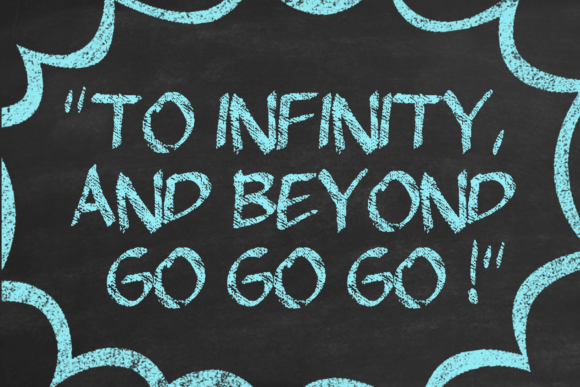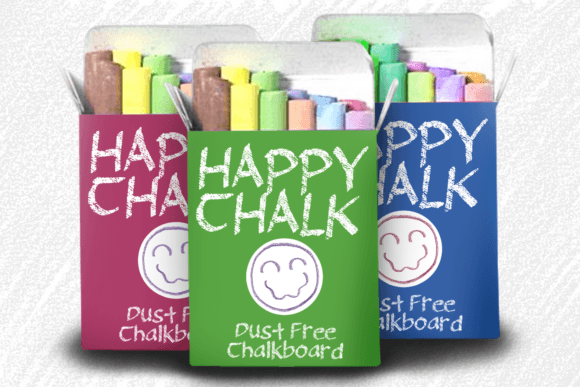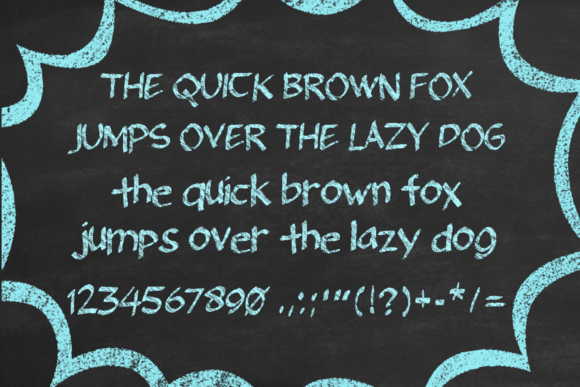
Introducing Action Pencil Font: The Ultimate Handwritten Font for Creative Designs
Are you a designer, crafter, or artist looking for a font that can add a personal touch to your creations? Look no further than Action Pencil Font, a natural and versatile handwritten font that’s perfect for a wide range of projects. In this article, we’ll explore the features and benefits of Action Pencil Font, and show you how to use it to create amazing designs that stand out.
The Versatility of Action Pencil Font
Action Pencil Font is a true workhorse, suitable for a vast array of applications. Whether you’re designing for print or digital media, this font can help you achieve a unique and casual look that’s sure to engage your audience. Here are some ideas for using Action Pencil Font:
- T-shirts and apparel: Add a personal touch to your clothing designs with Action Pencil Font’s friendly, approachable style.
- Comics and illustrations: Bring your characters to life with a font that’s reminiscent of hand-drawn comics and cartoons.
- Magazines and newspapers: Use Action Pencil Font to add a human touch to your editorial designs, making them more relatable and engaging.
- Social media posts: Stand out on social media with eye-catching graphics and typography that showcase your personality.
- Greeting cards and invitations: Create personalized and heartfelt cards that will make your loved ones feel special.
- Stickers and labels: Add a playful touch to your stickers and labels with Action Pencil Font’s fun and quirky style.
- Posters and flyers: Create bold and attention-grabbing posters and flyers that will get your message across.
- Kid’s book design: Bring your children’s book to life with a font that’s perfect for storytelling and illustration.
The Benefits of Action Pencil Font
So why choose Action Pencil Font over other fonts? Here are just a few benefits that make it an excellent choice for designers and crafters:
- Natural and friendly style: Action Pencil Font has a warm and approachable feel that’s perfect for creating designs that resonate with your audience.
- Highly versatile: Use Action Pencil Font for a wide range of projects, from digital media to print materials.
- Easy to read: Despite its handwritten nature, Action Pencil Font is clear and easy to read, making it perfect for body text and headlines.
- Unique and creative: With Action Pencil Font, you can add a personal touch to your designs and stand out from the crowd.
Tips for Using Action Pencil Font
To get the most out of Action Pencil Font, here are some tips to keep in mind:
- Experiment with colors: Action Pencil Font looks great in a variety of colors, so don’t be afraid to try out different hues and combinations.
- Mix and match: Combine Action Pencil Font with other fonts and graphics to create unique and interesting designs.
- Pay attention to spacing: Make sure to adjust the spacing between letters and words to create a natural and fluid look.
- Have fun: Most importantly, enjoy using Action Pencil Font and let your creativity shine!
In conclusion, Action Pencil Font is a versatile and natural handwritten font that’s perfect for designers, crafters, and artists looking to add a personal touch to their creations. With its friendly style, ease of use, and wide range of applications, Action Pencil Font is an excellent choice for anyone looking to create unique and engaging designs. So why wait? Try Action Pencil Font today and feel the good vibes!